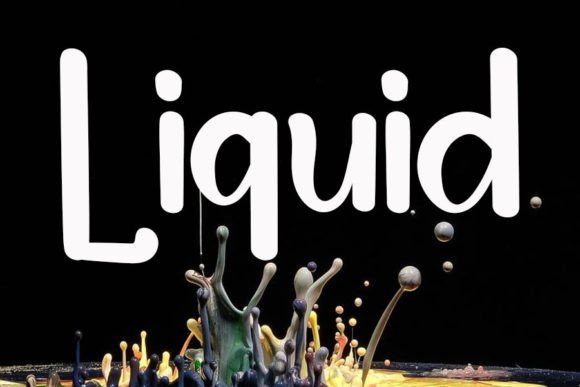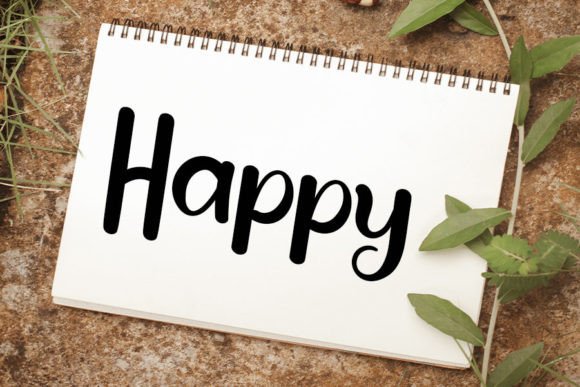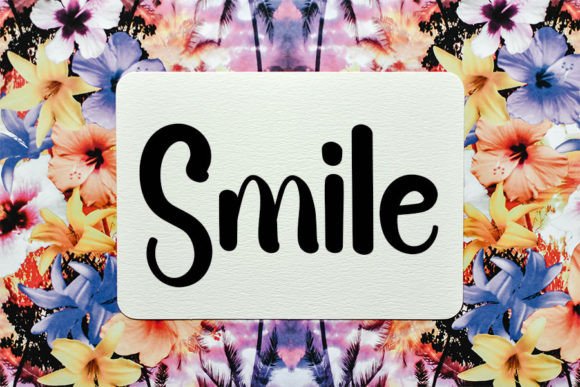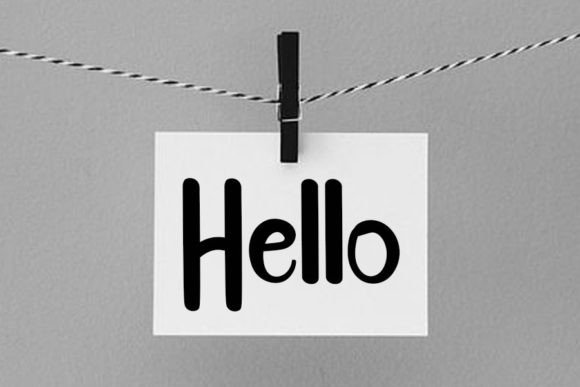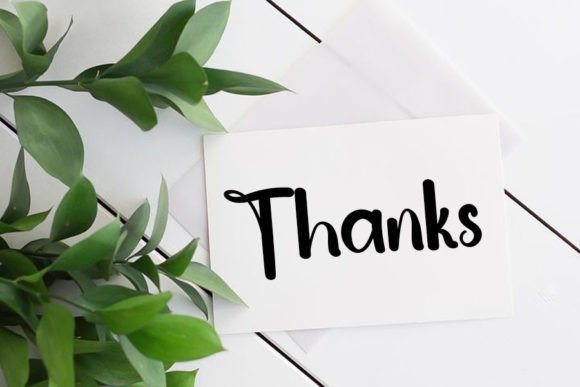
The Magical World of Bubble Font: A Designer’s Delight
I’ll never forget the time I was working on a branding project for a trendy new cafe, and I just couldn’t find the right font to capture their playful yet elegant vibe. That’s when I stumbled upon Bubble Font, and it was love at first sight! ✨ With its unique blend of whimsy and sophistication, this magical handwritten font has become a staple in my design toolkit.
An Honest Review of Bubble Font
• ✨ Elegant yet quirky, making it perfect for a wide range of design projects
• ✅ Clean and highly legible, even at smaller font sizes
• 💫 Supports OpenType features, glyphs, and stylistic alternates for added versatility
• 🎨 Highly customizable, allowing you to add your own personal touch
While Bubble Font is an amazing addition to any design project, there are a few things to keep in mind: 🤔
• ⚠️ Some characters may require manual kerning for optimal spacing
• ⚠️ Limited availability of extended language support
The Story Behind Bubble Font
According to its creator, Bubble Font was inspired by the whimsical world of childhood imagination. With a passion for elegant handwriting and quirky design elements, the designer aimed to craft a font that would bring a touch of magic to any project. The result is a beautiful, one-of-a-kind handwritten font that’s both clean and playful.
Q: What type of projects is Bubble Font best suited for?
Bubble Font is versatile and can be used for a wide range of projects, including logos, branding, social media graphics, and crafty DIY projects.
Q: Does Bubble Font support OpenType features?
Yes, Bubble Font supports OpenType features, glyphs, and stylistic alternates, allowing for added versatility and customization.